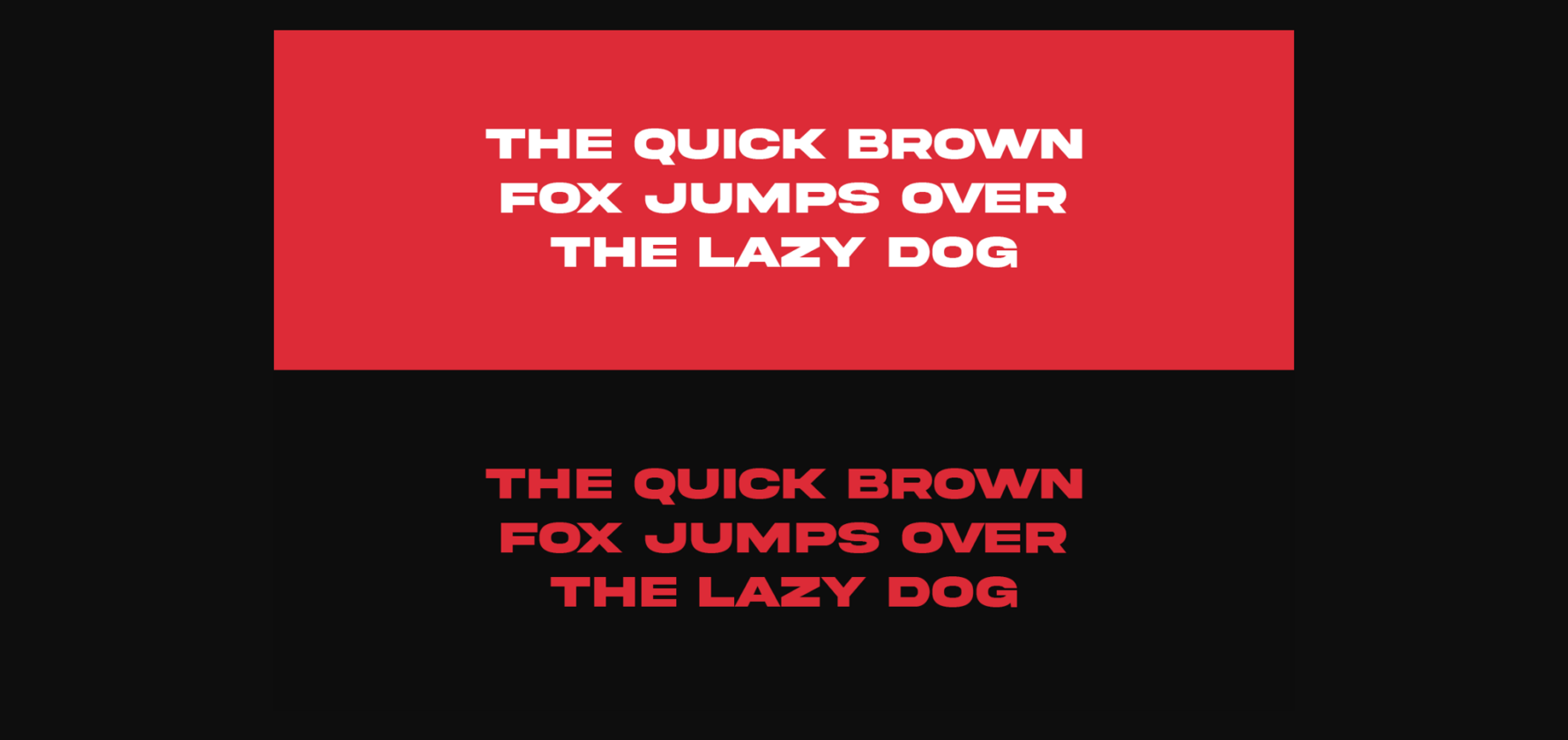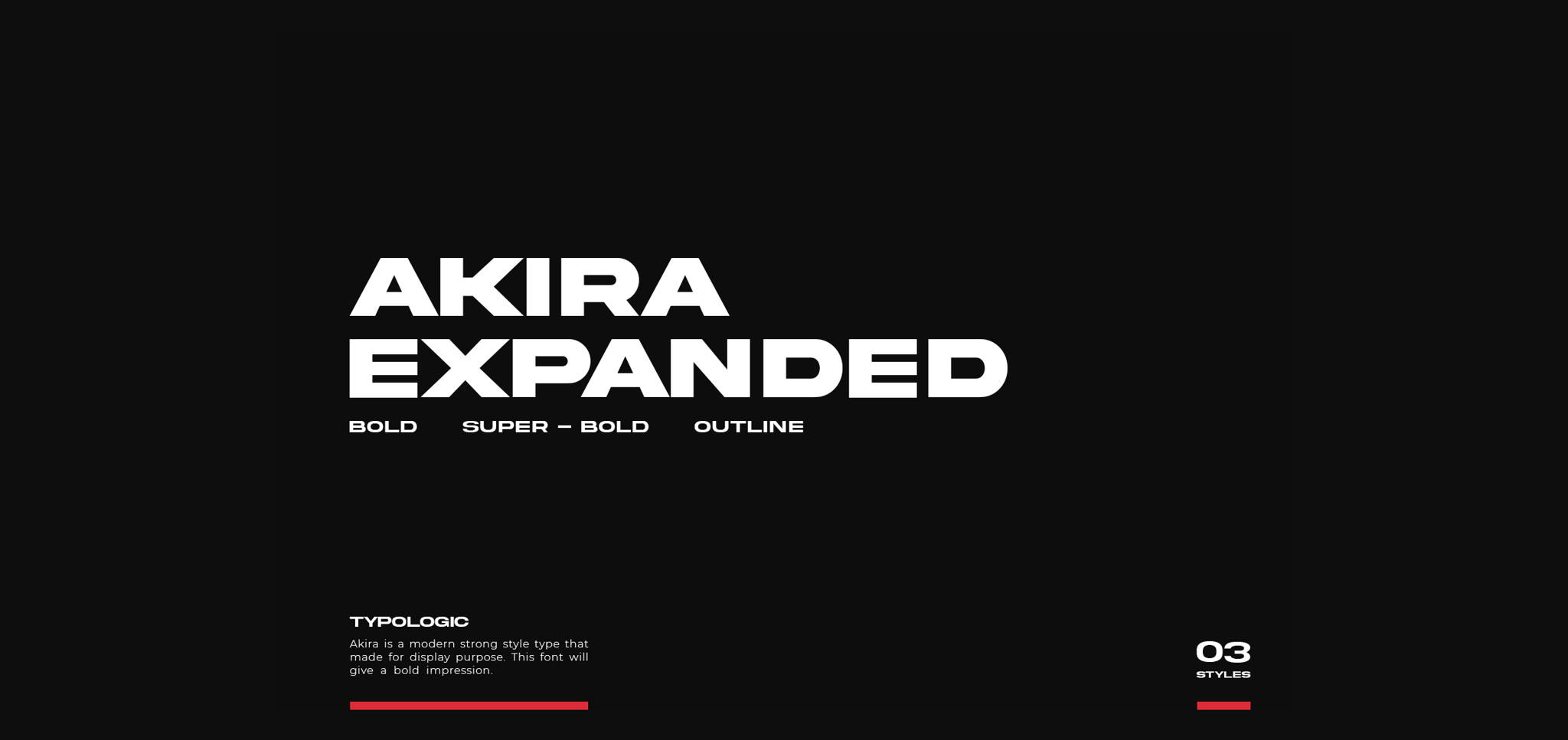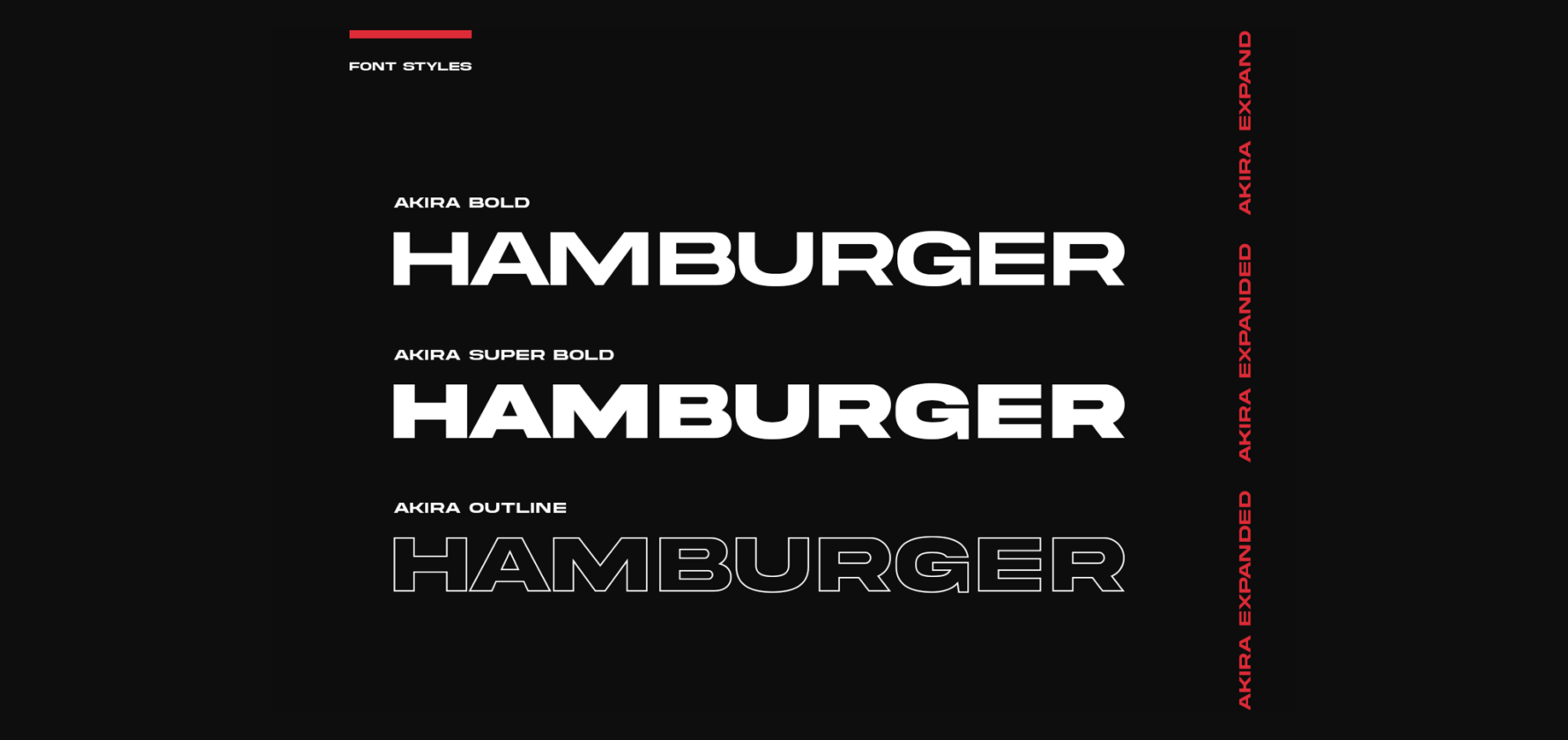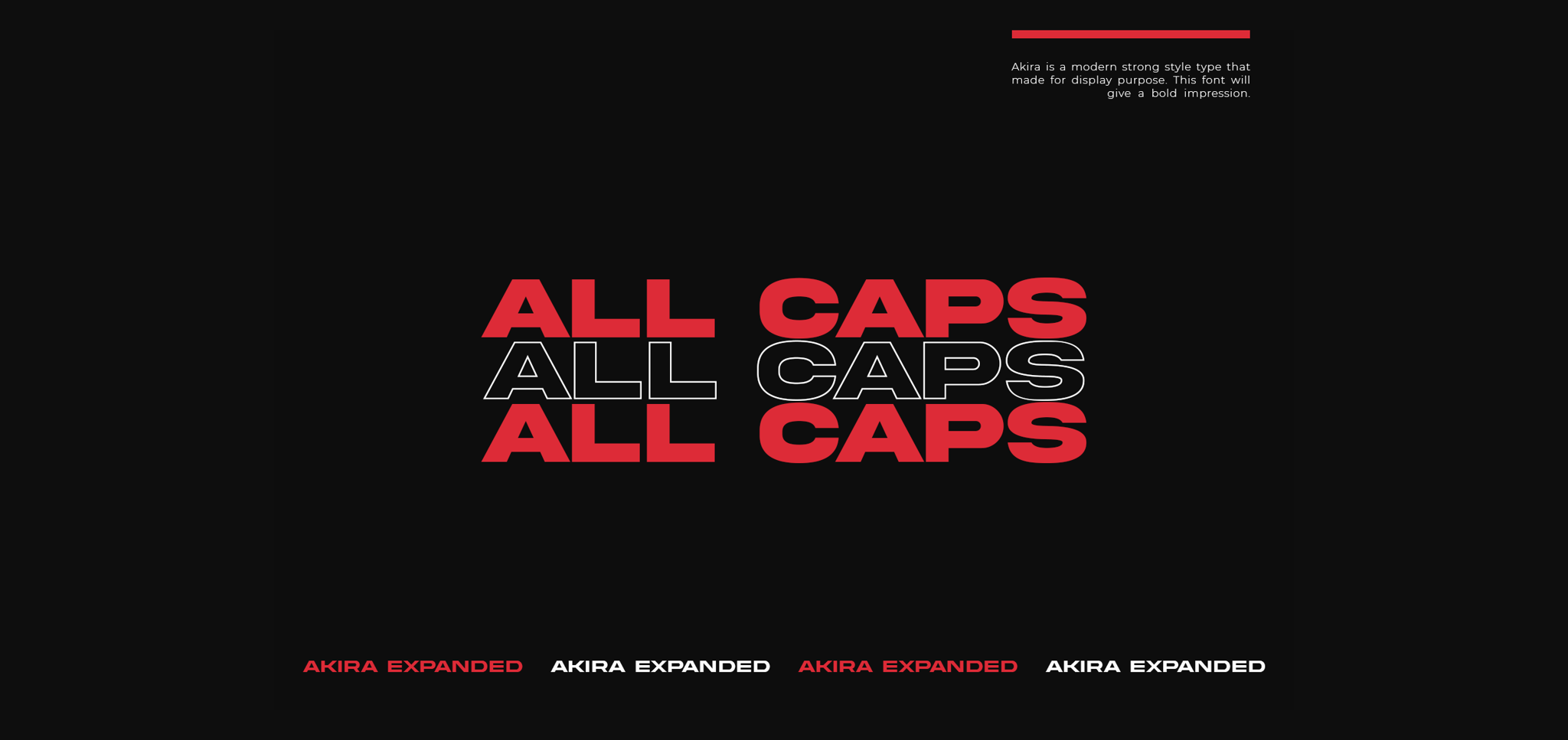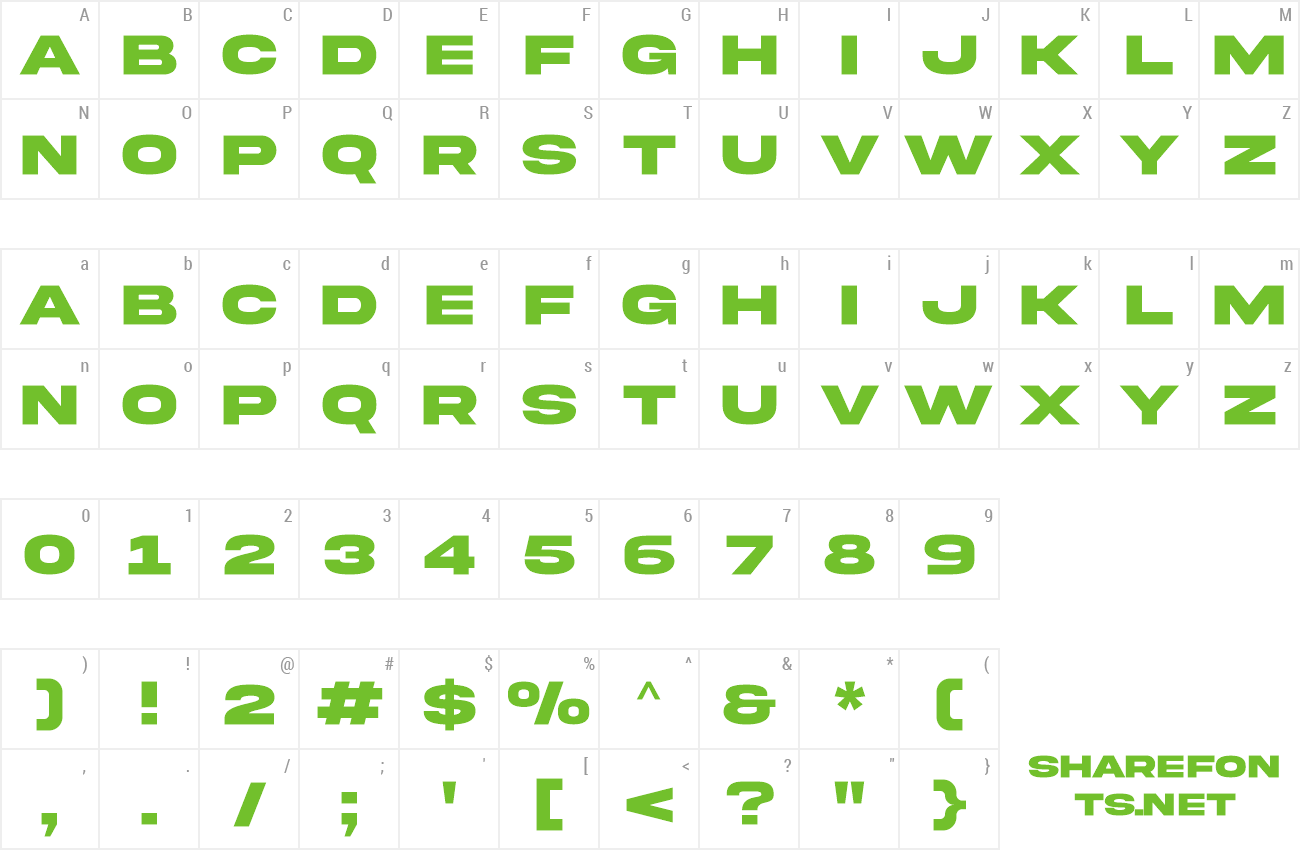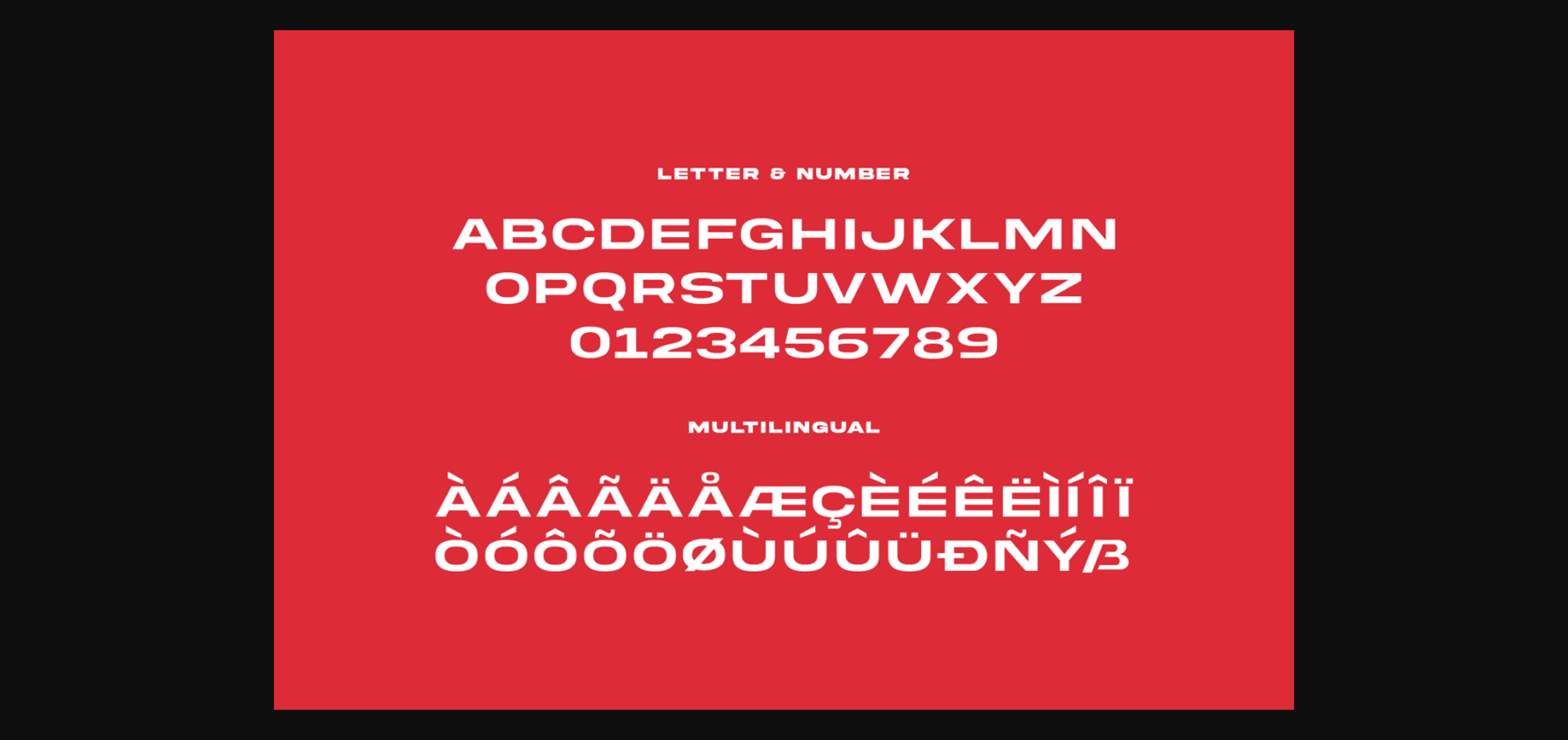
Akira Expanded Font
Akira Expanded Font - Akira expanded is a modern and strong font for text display purposes. Akira expanded font is geometric font family. Installable on pc, mac, linux, ios,. With a feel modern, advanced,. Download it for free or. Made for text display purposes, akira expanded brings a modern and strong impression to your. Discover the free akira expanded font at free font download !
Discover the free akira expanded font at free font download ! Download it for free or. Installable on pc, mac, linux, ios,. Made for text display purposes, akira expanded brings a modern and strong impression to your. Akira expanded is a modern and strong font for text display purposes. Akira expanded font is geometric font family. With a feel modern, advanced,.
Discover the free akira expanded font at free font download ! Akira expanded font is geometric font family. Download it for free or. With a feel modern, advanced,. Akira expanded is a modern and strong font for text display purposes. Made for text display purposes, akira expanded brings a modern and strong impression to your. Installable on pc, mac, linux, ios,.
Installable on pc, mac, linux, ios,. Akira expanded is a modern and strong font for text display purposes. Made for text display purposes, akira expanded brings a modern and strong impression to your. With a feel modern, advanced,. Discover the free akira expanded font at free font download !
Discover the free akira expanded font at free font download ! Akira expanded is a modern and strong font for text display purposes. Akira expanded font is geometric font family. Installable on pc, mac, linux, ios,. Made for text display purposes, akira expanded brings a modern and strong impression to your.
Discover the free akira expanded font at free font download ! Akira expanded is a modern and strong font for text display purposes. Download it for free or. Made for text display purposes, akira expanded brings a modern and strong impression to your. Installable on pc, mac, linux, ios,.
Made for text display purposes, akira expanded brings a modern and strong impression to your. Akira expanded is a modern and strong font for text display purposes. Discover the free akira expanded font at free font download ! Download it for free or. With a feel modern, advanced,.
Akira Expanded Modern Typography Font
Akira expanded font is geometric font family. Download it for free or. Akira expanded is a modern and strong font for text display purposes. Made for text display purposes, akira expanded brings a modern and strong impression to your. Installable on pc, mac, linux, ios,.
Installable on pc, mac, linux, ios,. Discover the free akira expanded font at free font download ! Akira expanded font is geometric font family. Akira expanded is a modern and strong font for text display purposes. Download it for free or.
Akira expanded is a modern and strong font for text display purposes. Installable on pc, mac, linux, ios,. Made for text display purposes, akira expanded brings a modern and strong impression to your. Akira expanded font is geometric font family. Discover the free akira expanded font at free font download !
With a feel modern, advanced,. Installable on pc, mac, linux, ios,. Akira expanded is a modern and strong font for text display purposes. Made for text display purposes, akira expanded brings a modern and strong impression to your. Download it for free or.
Akira Expanded Font Dafont File
Download it for free or. Installable on pc, mac, linux, ios,. Akira expanded font is geometric font family. Akira expanded is a modern and strong font for text display purposes. Made for text display purposes, akira expanded brings a modern and strong impression to your.
With A Feel Modern, Advanced,.
Discover the free akira expanded font at free font download ! Made for text display purposes, akira expanded brings a modern and strong impression to your. Download it for free or. Installable on pc, mac, linux, ios,.
Akira Expanded Font Is Geometric Font Family.
Akira expanded is a modern and strong font for text display purposes.